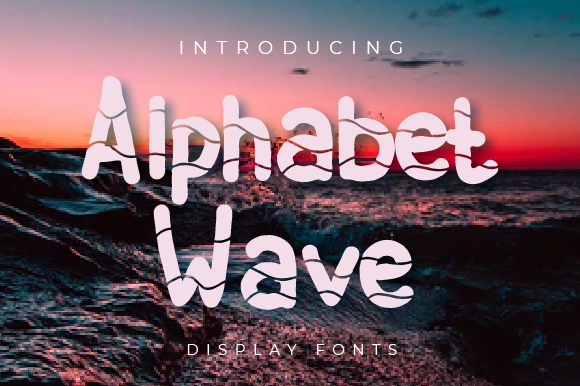
Get Ready to Ride the Wave of Creativity
Do you remember that moment when you’re brainstorming ideas for a new project and suddenly, a spark of inspiration hits you? It’s like the whole world comes alive, and you can feel the excitement building up inside. That’s exactly what happens when you discover the Alphabet Wave Font – a trendy and creative display font that will make your design ideas stand out in a crowd.
As a designer, you’re always on the lookout for that special something that sets your work apart from the rest. And that’s where the Alphabet Wave Font comes in – a unique and interesting font that will add a touch of personality to your designs. Whether you’re working on a logo, a poster, or a social media campaign, this font is sure to make a statement and leave a lasting impression.
With its creative and playful vibe, the Alphabet Wave Font is a valuable addition to any designer’s toolkit. So, why settle for ordinary when you can ride the wave of creativity and make your designs truly unforgettable?
- Unique Wave Design: The Alphabet Wave Font features a distinctive wave-like design for each letter, making it a unique and eye-catching choice for various design projects.
- Full Alphabet Support: The font includes a full set of uppercase and lowercase letters, as well as numbers and punctuation marks, making it a versatile choice for a wide range of projects.
- Perfect for Creative Projects: The Alphabet Wave Font is ideal for use in creative projects, such as posters, flyers, and social media graphics, where a unique and attention-grabbing font is desired.
- Easy to Use: The font is designed to be easy to read and use, even at small font sizes, making it a great choice for designers who want to add a touch of creativity to their projects without sacrificing readability.
Designer Review: Alphabet Wave Font
I recently had the chance to work with the Alphabet Wave Font, and I have to say, it’s a unique and interesting choice for any project. ✨ One of the things that really stands out about this font is its versatility. It can be used for both digital and print projects, and it’s particularly well-suited for creative and artistic applications.
Another thing that I appreciate about Alphabet Wave Font is its wide range of character variations. ✨ The font includes uppercase and lowercase letters, numbers, and a variety of special characters, making it easy to communicate complex ideas in a visually appealing way.
- ⚠️ Limited legibility in smaller font sizes: While the font is great for creative applications, it can be difficult to read at smaller sizes, which may limit its use in certain contexts.
- ⚠️ May not be suitable for formal or professional applications: The font’s playful and whimsical style may not be suitable for formal or professional projects, such as business reports or academic papers.
Overall, I think the Alphabet Wave Font is a great choice for designers who are looking for a unique and creative font to add some visual interest to their projects. While it may have some limitations, it’s definitely worth considering for the right application.
The Alphabet Wave Font is ideal for:
- Children’s educational materials and graphics.
- Party invitations and decorations.
- Graphic design and branding projects.
For the best results, use the Alphabet Wave Font in conjunction with bold and bright colors to create a playful and eye-catching design.